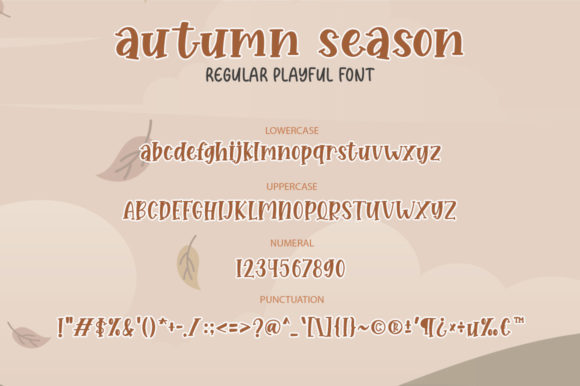
Autumn Season Font
Autumn Season is a cool and playful display font. Whether you use it for cartoon related designs, children games or just any creation that requires a lovely touch, this font will be an amazing choice.